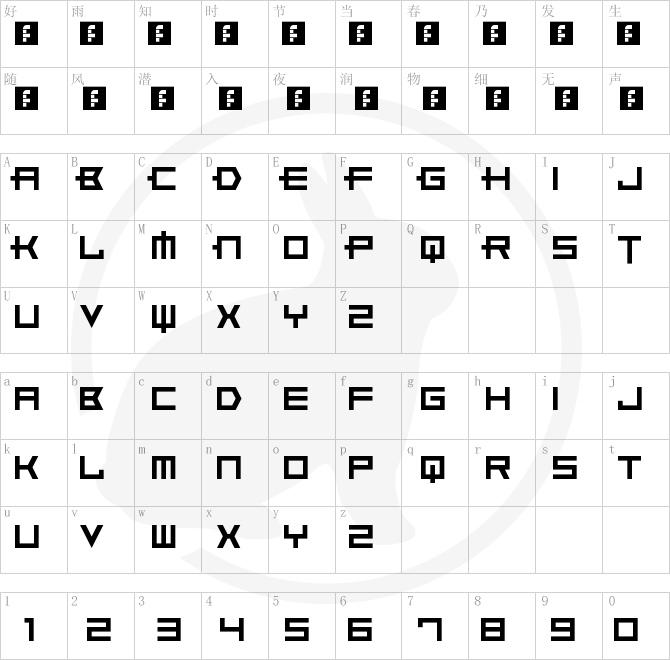
- Font Name:Xero's Karma
Xero-s-Karma-Regular.ttf is a very beautiful artistic font, Xero-s-Karma-Regular.ttf is widely used in the design and printing of various books and pictures,Xero-s-Karma-Regular.ttf has a strong visual impact,Xero-s-Karma-Regular.ttf is a commonly used font in newspapers, magazines and books, and is used in posters, e-commerce Poster design, store design, logo design, font design and other fields.Xero-s-Karma-Regular.